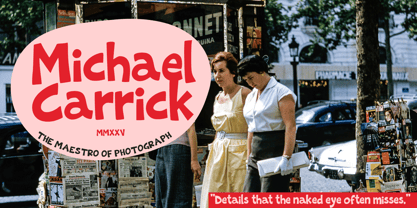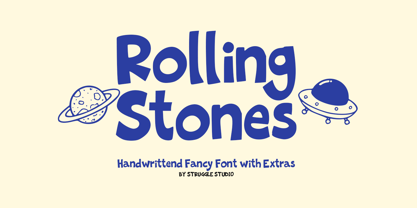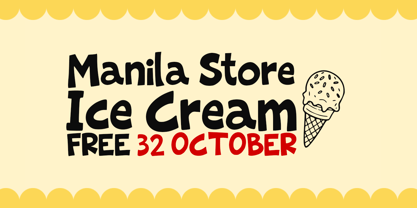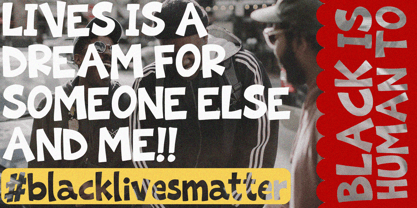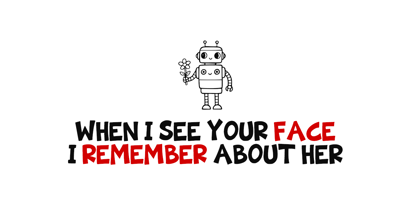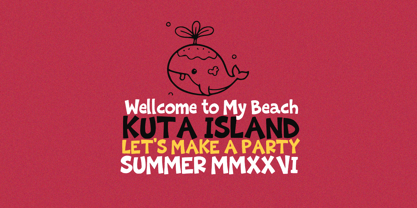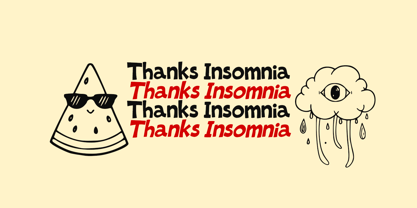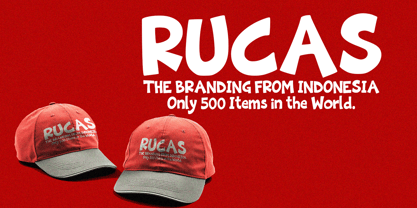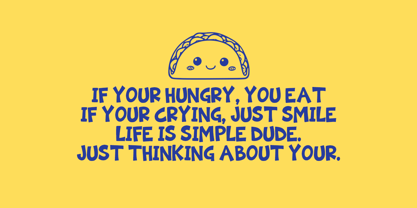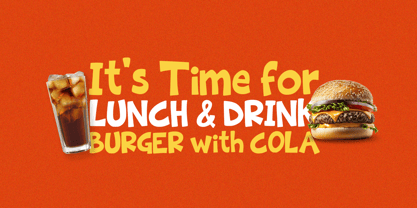
The Rolling Stones
by Struggle Studio
The The Rolling Stones Font Family was designed by Andri Kurniawan and published by Struggle Studio. The Rolling Stones contains 3 styles and family package options. More about this family
Rolling Stones – A Playful & Groovy Handwritten Font Bring a sense of joy and whimsy to your designs with Rolling Stones, a handcrafted display font designed by Struggle Studio. Featuring thick, organic strokes and a bouncy rhythm, this font is all about personality and fun. Key Features: Unique Character: Each letter is carefully drawn to maintain a casual, "imperfect" feel that adds an authentic human touch to digital work. Whimsical Vibe: With its rounded edges and bold weight, it’s perfect for projects that need to feel friendly, approachable, and energetic. Bonus Extras: This package includes a set of hand-drawn vector extras—including space-themed doodles like planets and UFOs—to help you create a cohesive look instantly. Perfect For: Children’s Branding: Books, toy packaging, and apparel. Social Media: Eye-catching quotes, YouTube thumbnails, and Instagram stories. Merchandise: T-shirt designs, stickers, and tote bags. Event Stationery: Birthday invitations, posters, and greeting cards. Add a touch of cosmic fun to your creative toolkit with Rolling Stones!
Designers: Andri Kurniawan
Foundry: Struggle Studio
The Rolling Stones